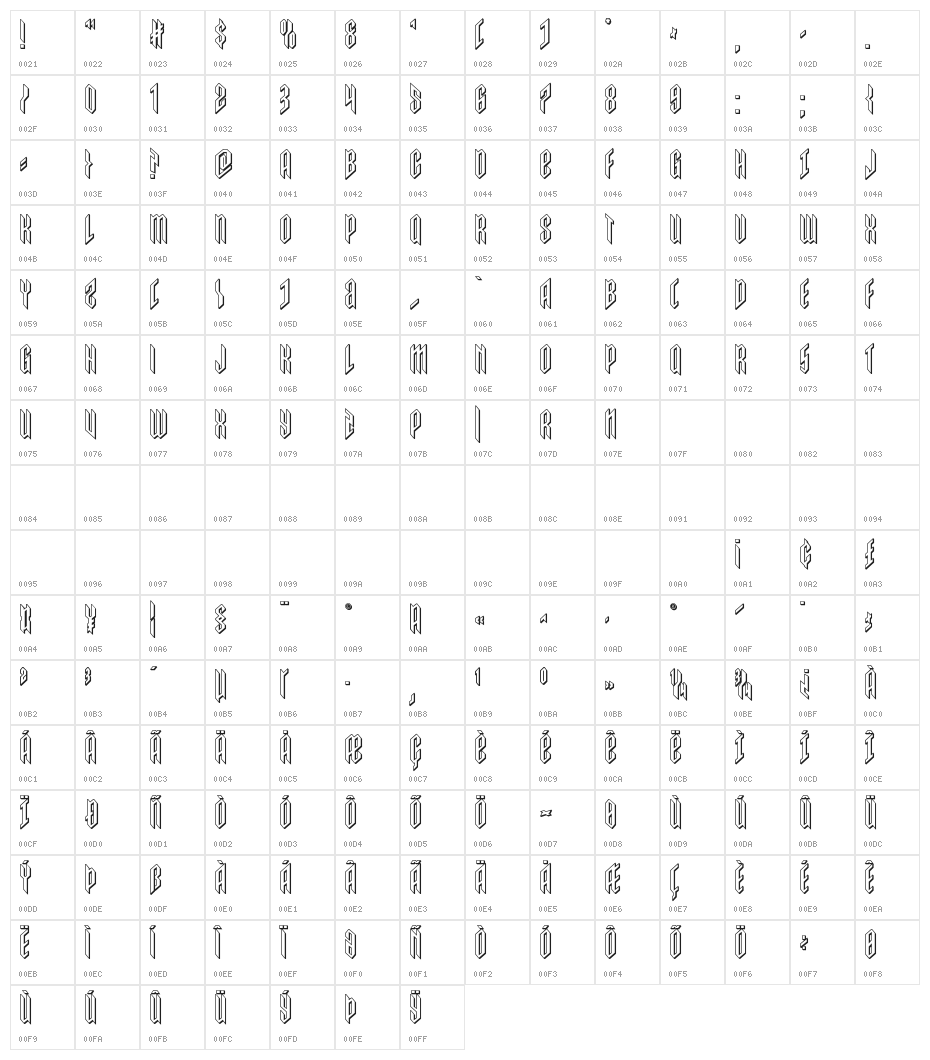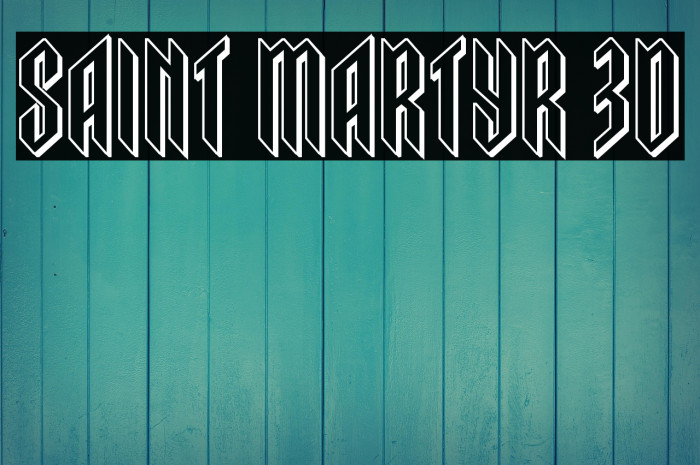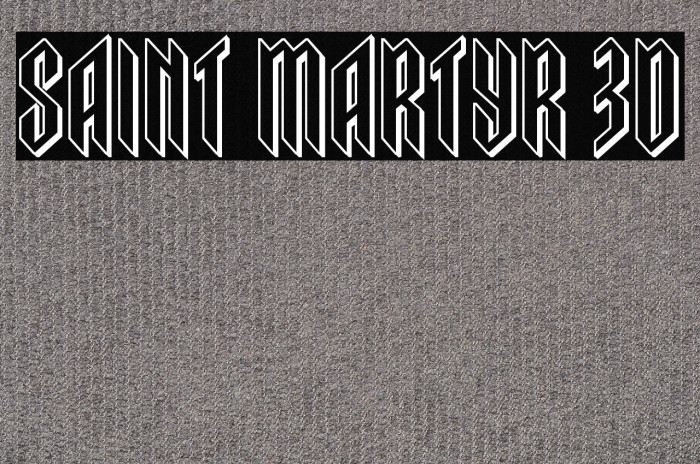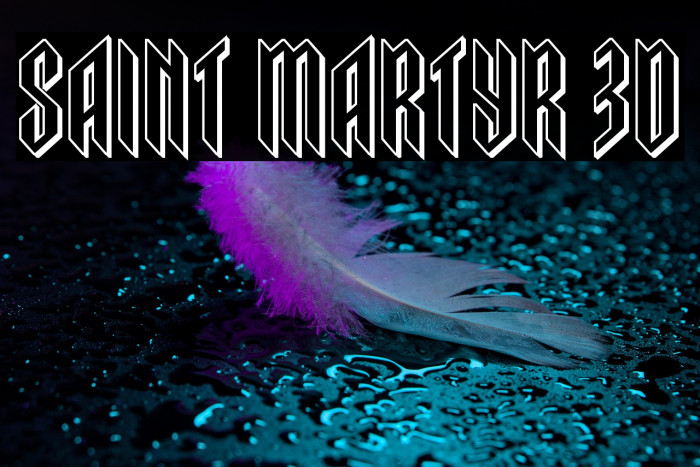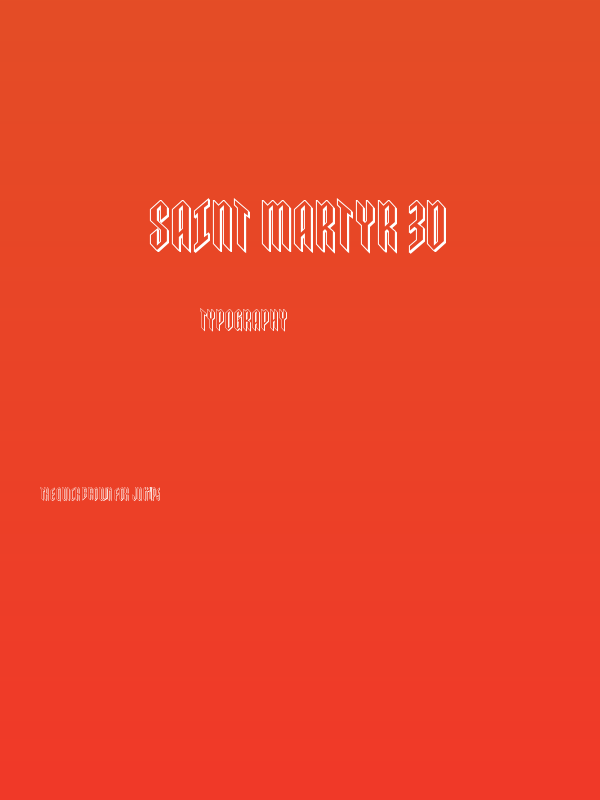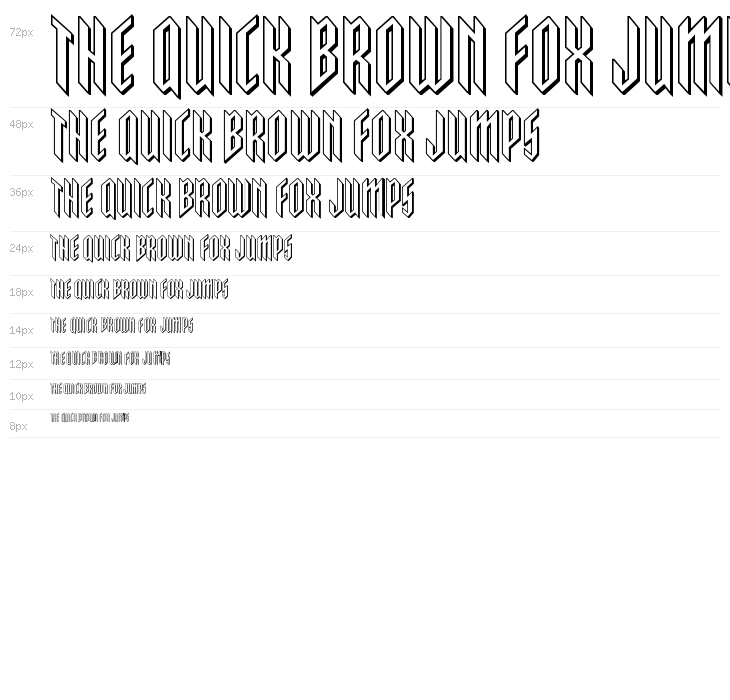
Saint Martyr 3D Font
Saint Martyr 3D Description
This font features a bold, three-dimensional design with a strong geometric influence. The characters are outlined with a shadow effect, giving them a striking, embossed appearance. The uppercase letters are angular and sharp, with a consistent width that adds to the uniformity of the design. The numbers and special characters follow the same style, ensuring a cohesive look across all elements. The font's unique 3D effect makes it stand out, making it ideal for projects that require a bold and eye-catching typeface.
| Proposed Projects | Ideal for posters, logos, video game graphics, and any project needing a bold, standout typeface. |